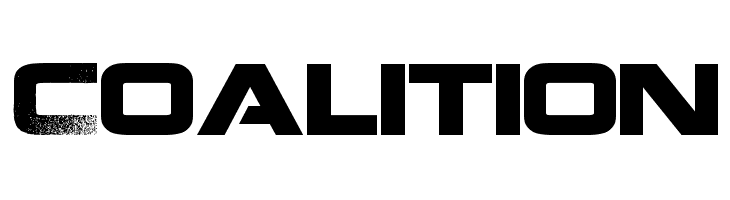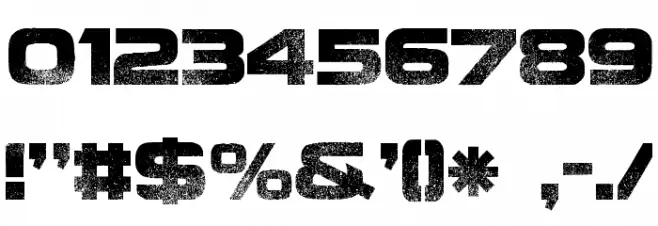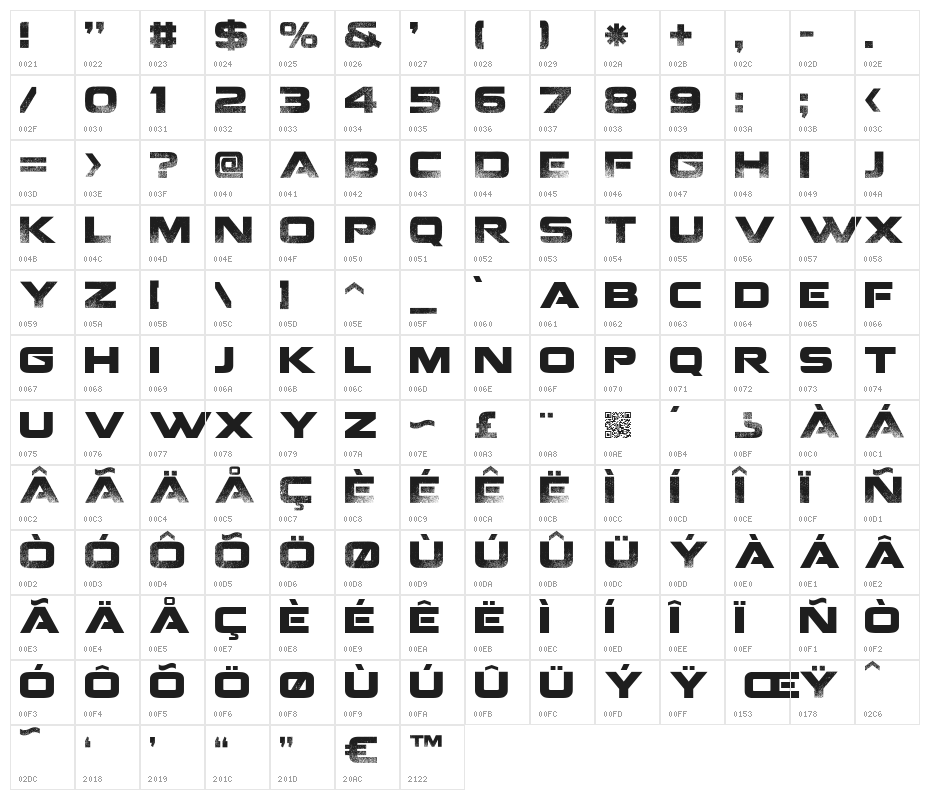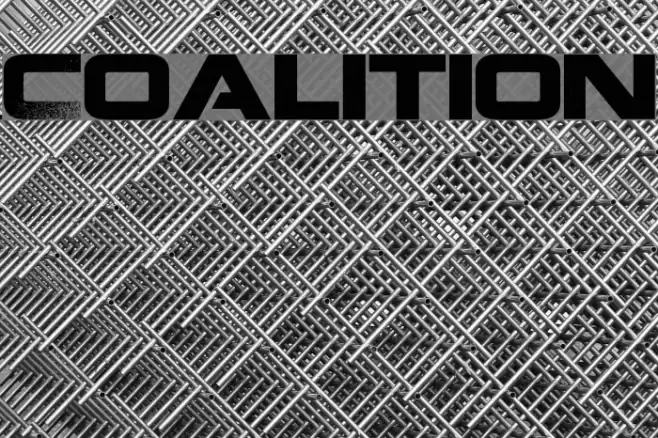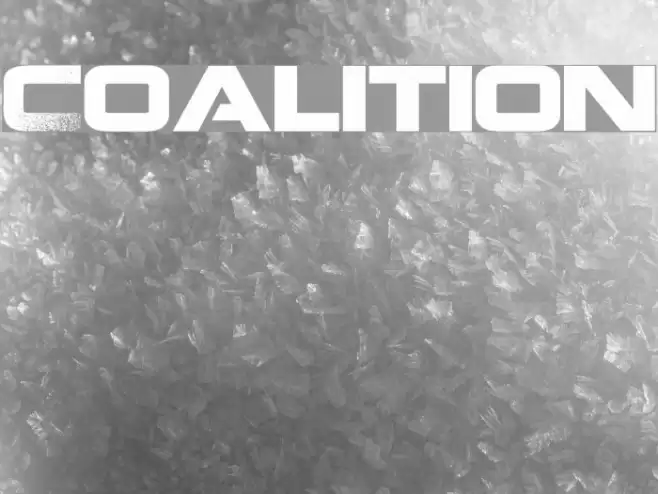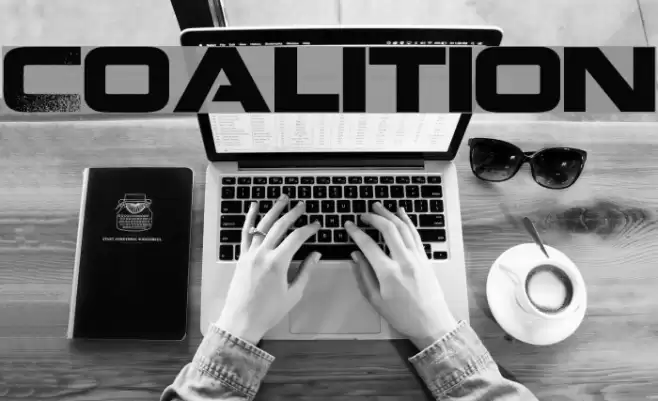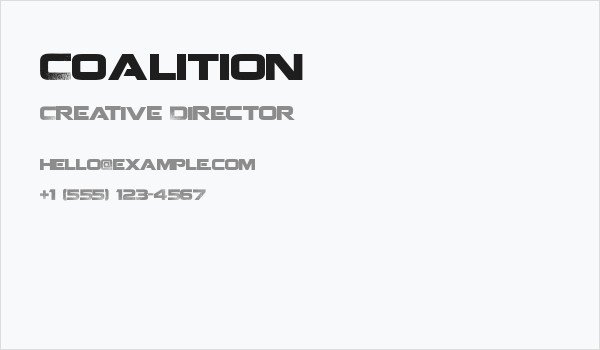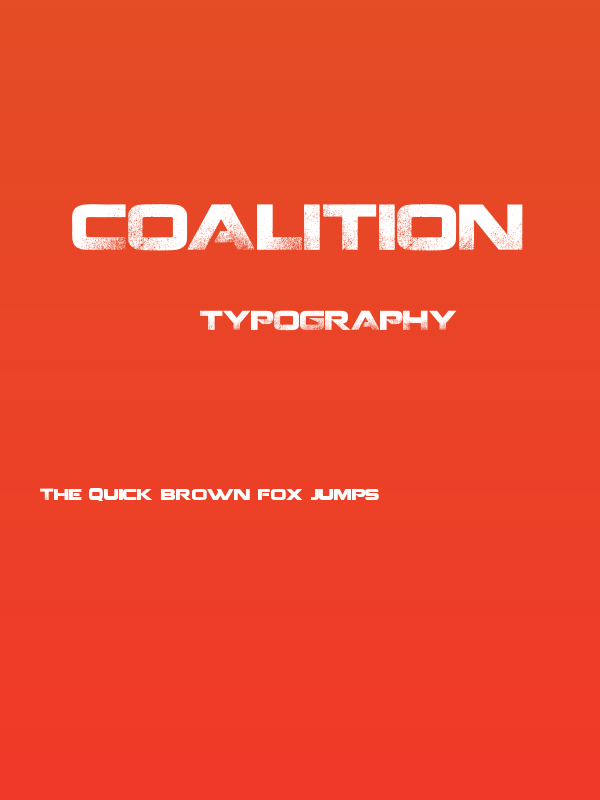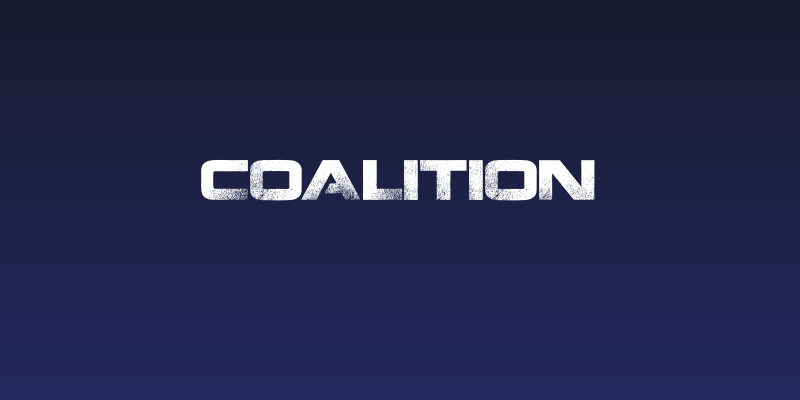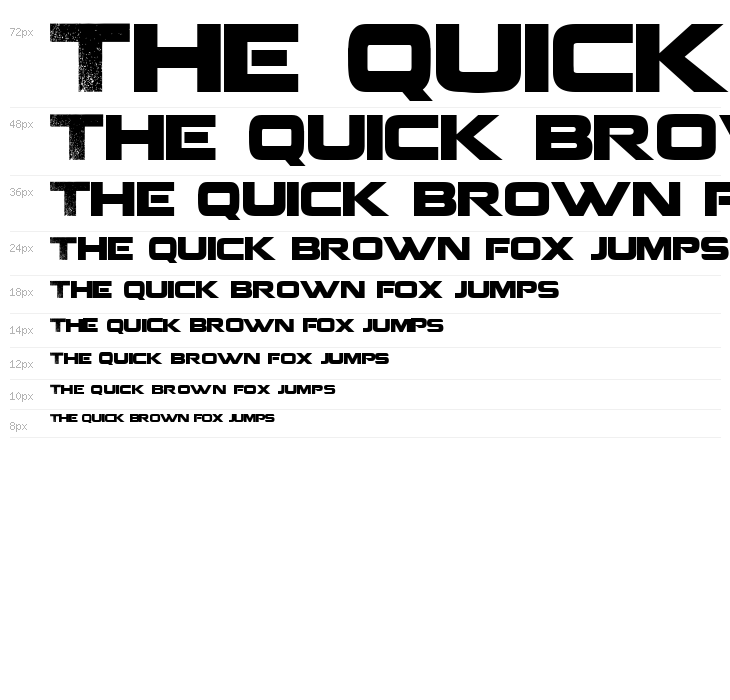
Coalition Font
Coalition Description
This font features a bold, impactful design with a distressed, grunge texture that adds a rugged and edgy feel. The uppercase letters are strong and angular, with a slight slant that gives them a dynamic appearance. The numbers and special characters maintain this bold style, with the texture providing a worn, vintage look. The font's overall aesthetic is both modern and industrial, making it suitable for projects that require a strong visual impact. The character spacing is normal, allowing for clear readability despite the textured design.
| Overall Style | Modern, Industrial, Grunge |
| Proposed Projects | Ideal for posters, album covers, branding for edgy or industrial-themed products, and any design needing a bold, gritty look. |